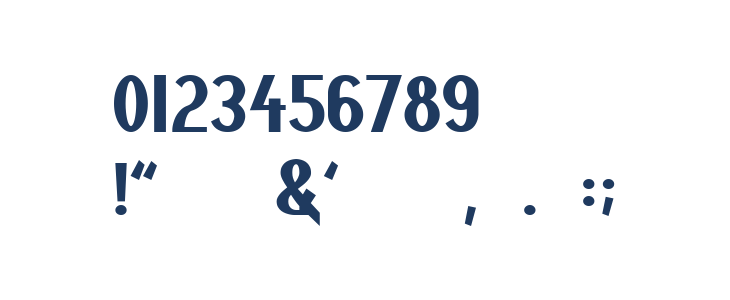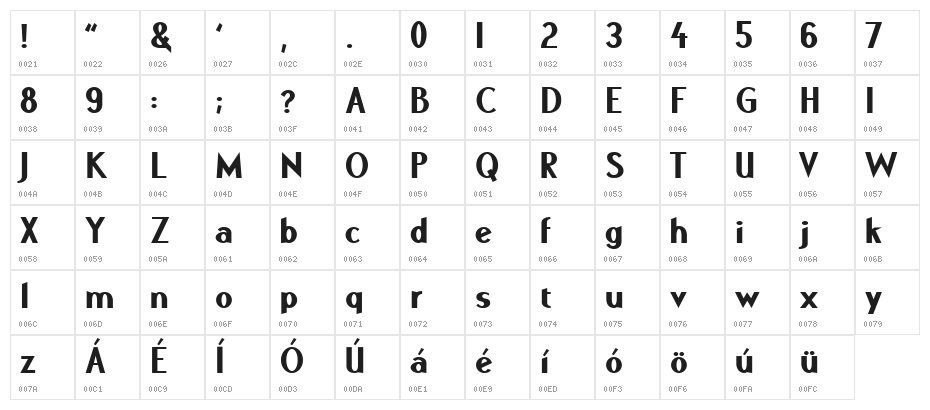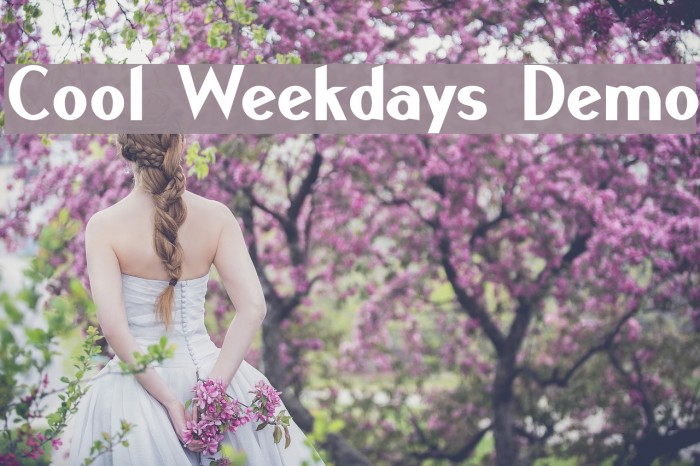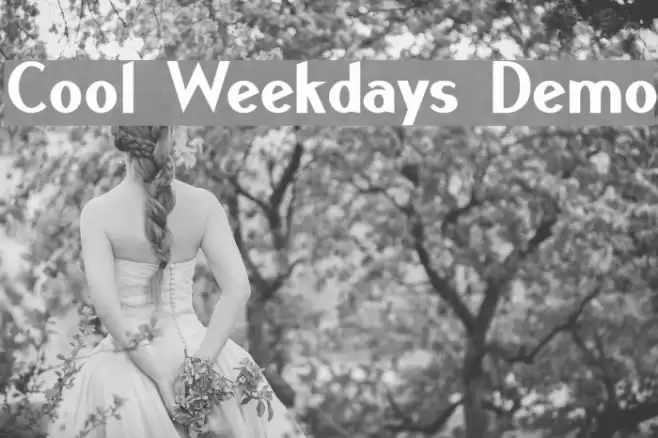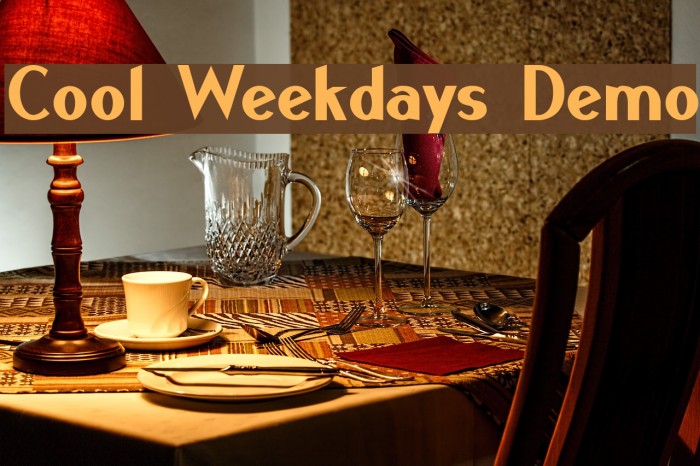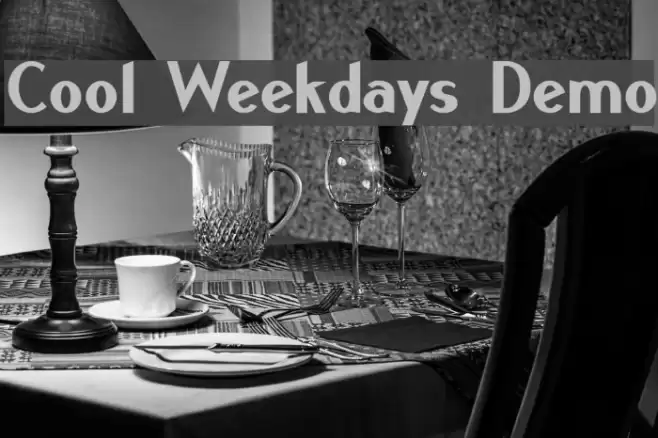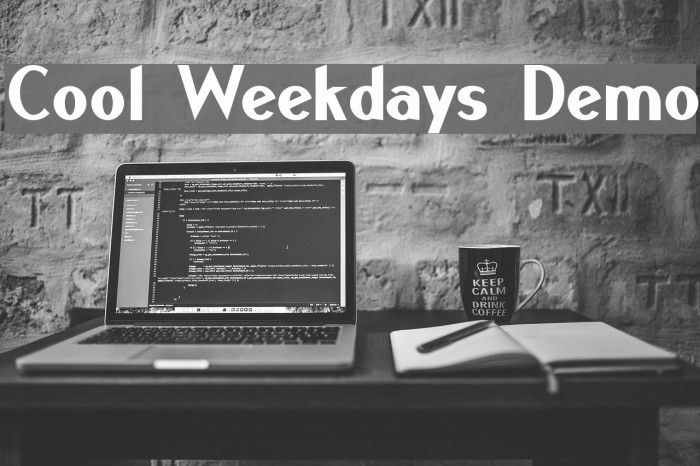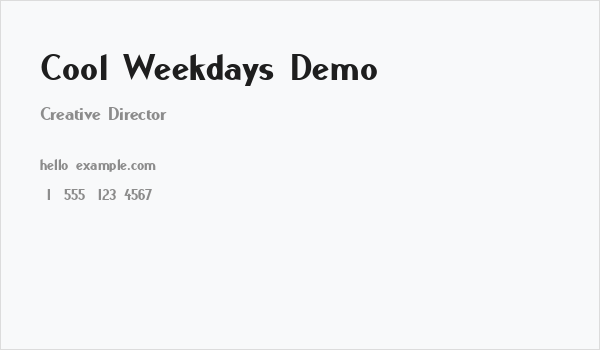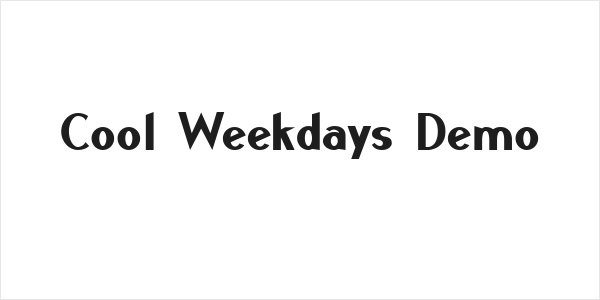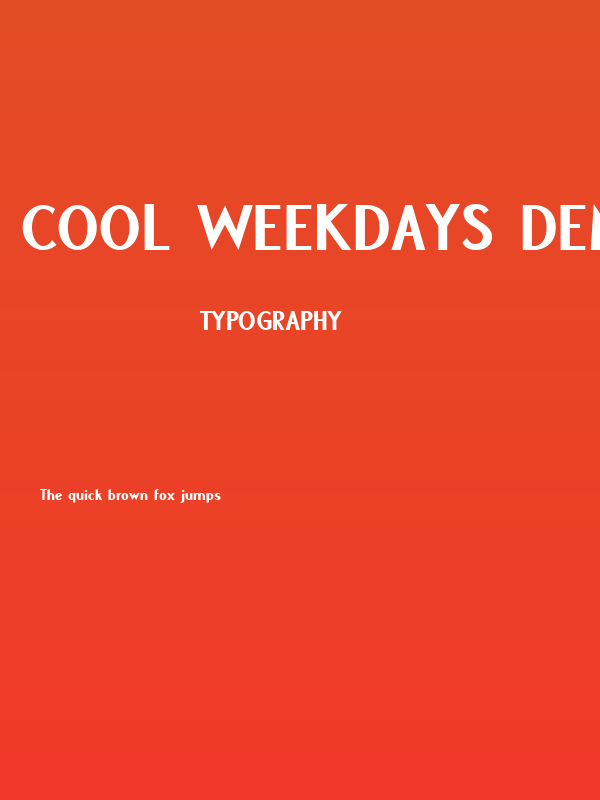
Cool Weekdays Demo Font
Cool Weekdays Demo Description
This font features bold, clean lines with a modern and slightly playful aesthetic. The uppercase letters are strong and assertive, while the lowercase letters maintain a consistent weight, offering a harmonious balance. The numerals are distinct and easy to read, making them suitable for various applications. Special characters are well-integrated, maintaining the overall style of the font. The design is versatile, suitable for both digital and print media, and can be used to convey a sense of modernity and professionalism.
| Proposed Projects | Ideal for branding, advertising, headlines, and digital media projects. |